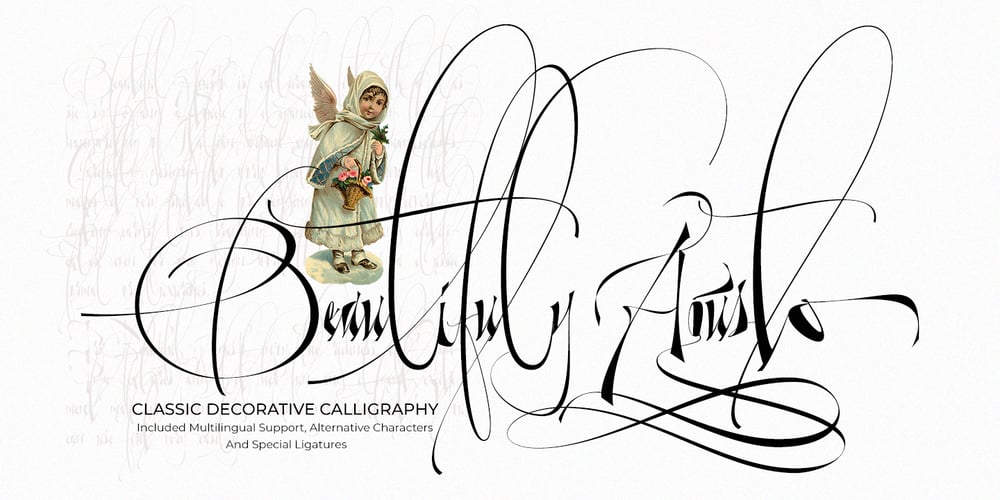
Beautifuly Agusto Font Family was designed by Sukjana Almunandar and published by Alcode. Beautifuly Agusto contains 1 styles and family package options. Beautifuly Agusto is calligraphy font with a classic style and a touch of elegance, inspired by the handwriting of Italian women and ancient manuscripts. Carefully designed to work together in harmony that makes it very suitable for wedding media, book covers, greeting cards, logos, branding, business cards and certificates, even for any design work that requires a classic, formal or luxurious.Try Beautifuly Agusto, enjoy the richness of OpenType features and let her fun and elegant excitement make you happy and enhance your creativity! You can use this font very easily.Included Multilingual Support, Alternative Characters And Special LigaturesIf you do not have programs that support OpenType features like Adobe Illustrator and CorelDraw X Versions, you can access all alternative flying machines using Font Book (Mac) or Character Map (Windows):